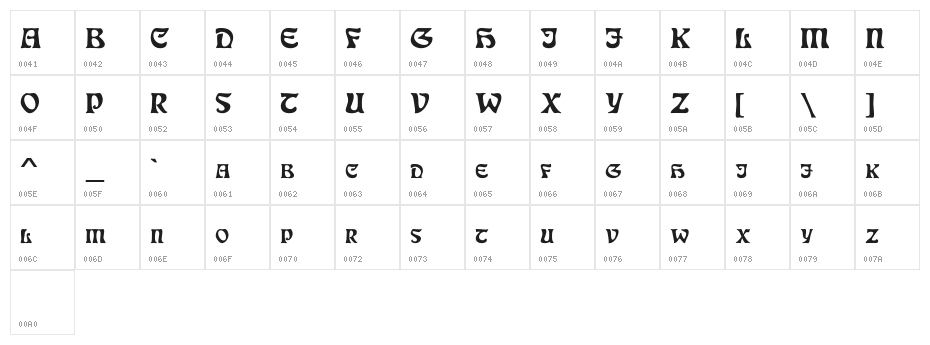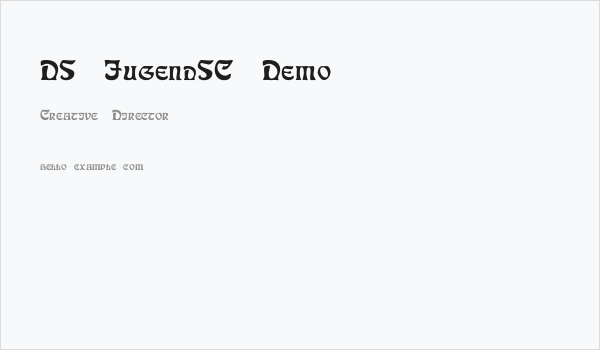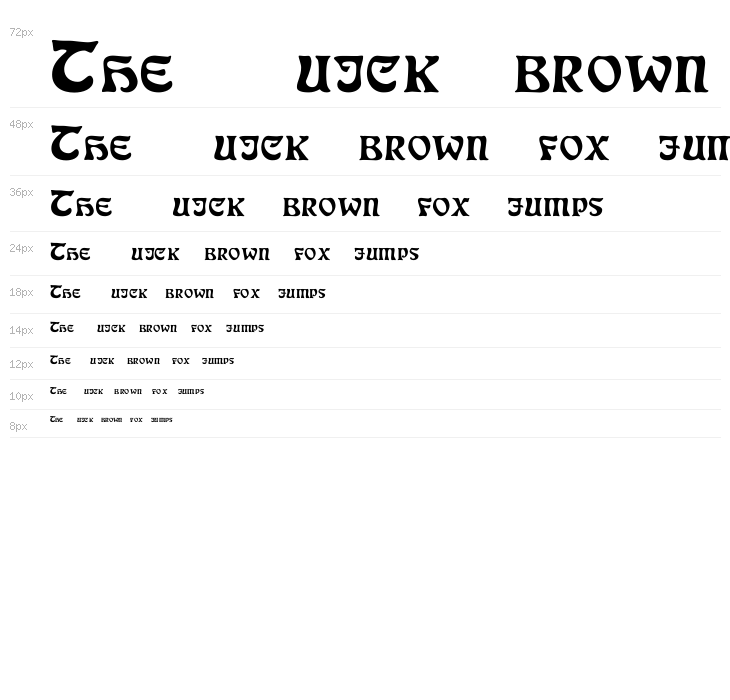
DS JugendSC Demo Font
DS JugendSC Demo Description
This font exhibits a bold and dramatic style with a strong presence, characterized by its thick strokes and unique, angular forms. The letters have a distinctive, almost medieval or gothic appearance, with sharp edges and pronounced curves that give it a decorative flair. The uppercase and lowercase letters maintain a consistent style, with the uppercase being more prominent and commanding. The numerals and special characters follow the same stylistic cues, ensuring a cohesive look across all elements. This font is designed to capture attention and convey a sense of tradition and strength.
| Proposed Projects | Ideal for projects requiring a historical or medieval theme, such as book covers, posters, or themed event invitations. |